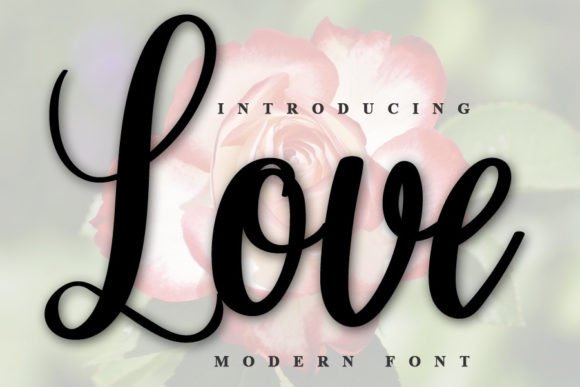
Introducing Love Font - the perfect script font for all your design needs! Created by ABBAsalam, this font is a must-have for anyone looking for the best fonts for Cricut pens.
Love Font is more than just a font - it's a way to elevate your designs to the next level. With its fresh and beautiful handwritten style, it's perfect for creating eye-catching designs that will stand out from the crowd. Whether you're designing Youtube banners, Cover Logo Mockups, Wedding Invitations, ID Cards, Flyers, or Crafts, Love Font will make your work shine.
But Love Font isn't just pretty - it's also versatile and practical. Its simple and unique style makes it easy to read, no matter what size or color you use it in. And because it's a script font, it's perfect for creating that personal touch that will make your designs feel special and unique.